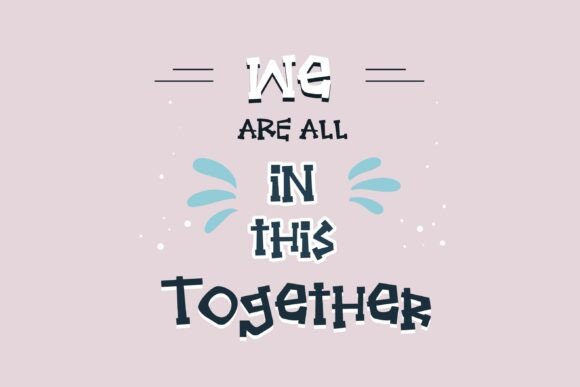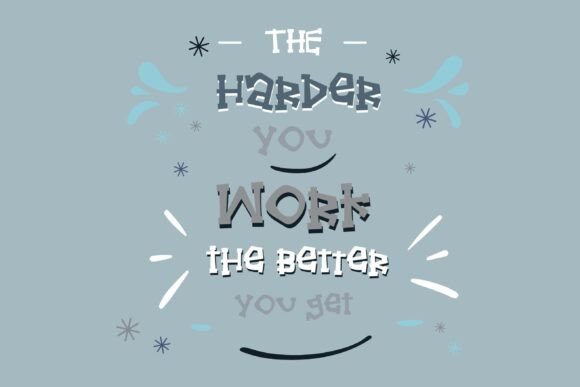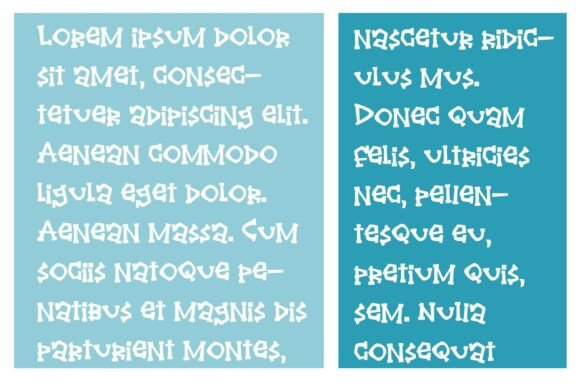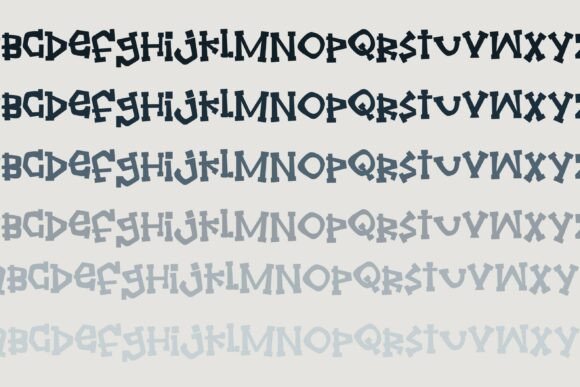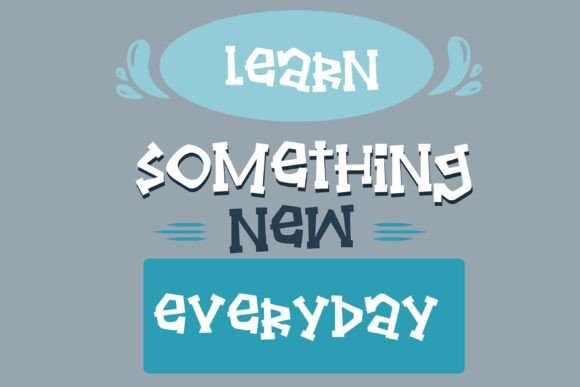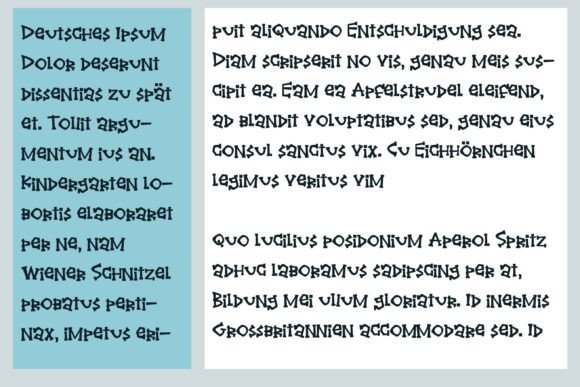
Wander into a World of Imagination with Aminals Font
Are you a designer, crafter, or storyteller looking for a unique and charming display typeface to bring your creative projects to life? Look no further than Aminals Font, a delightful and imaginative font that captures the essence of handmade craftsmanship and storytelling.
A Font that Feels like a Childhood Craft Project
Aminals Font is a bold, geometric typeface that features rhythmic “paper-cut” edges and whimsical, mismatched proportions. These characteristics give the font a playful and endearing personality that feels like a favorite childhood craft project. The sturdy structural presence of Aminals makes it perfect for a variety of creative applications, from independent nursery wall art to children’s book titles and DIY party branding.
Perfect for Playful and Creative Projects
Aminals Font is the premier choice for designers and crafters who want to add a touch of playfulness and creativity to their projects. Whether you’re creating social media headers, party invitations, or children’s book titles, Aminals is the perfect font to bring your imagination to life. Its bold and geometric letterforms make it easy to read and recognize, while its whimsical proportions add a touch of personality and charm.
Independent Nursery Wall Art and Children’s Book Titles
Aminals Font is a perfect fit for independent nursery wall art and children’s book titles. Its bold and sturdy presence makes it easy to read and recognize, while its playful personality adds a touch of whimsy and fun. Imagine using Aminals to create a custom nursery wall art piece that features your child’s name or a special message. The font’s handmade and storyteller soul makes it feel like a one-of-a-kind, artisanal piece that will be treasured for years to come.
DIY Zoo-Themed Party Branding and Social Media Headers
Aminals Font is also perfect for DIY zoo-themed party branding and social media headers. Its playful and creative personality makes it a great fit for party invitations, decorations, and other materials. Imagine using Aminals to create a custom party invitation that features a fun and colorful zoo theme. The font’s bold and geometric letterforms make it easy to read and recognize, while its whimsical proportions add a touch of personality and charm.
Key Features of Aminals Font
- Bold and geometric letterforms: Aminals Font features bold and geometric letterforms that are easy to read and recognize.
- Rhythmic “paper-cut” edges: The font’s rhythmic “paper-cut” edges give it a playful and endearing personality.
- Whimsical, mismatched proportions: Aminals Font features whimsical, mismatched proportions that add a touch of personality and charm.
- Sturdy structural presence: The font’s sturdy structural presence makes it perfect for a variety of creative applications.
- Playful and creative personality: Aminals Font has a playful and creative personality that makes it perfect for designers and crafters who want to add a touch of imagination to their projects.
Get Creative with Aminals Font
If you’re looking for a font that will bring your creative projects to life, look no further than Aminals Font. Its unique and charming personality makes it perfect for a variety of applications, from independent nursery wall art to children’s book titles and DIY party branding. So why wait? Get creative with Aminals Font today and discover a world of imagination and possibility.
In conclusion, Aminals Font is a charming and imaginative display typeface that captures the essence of handmade craftsmanship and storytelling. Its bold and geometric letterforms, rhythmic “paper-cut” edges, and whimsical, mismatched proportions make it perfect for designers and crafters who want to add a touch of playfulness and creativity to their projects. Whether you’re creating independent nursery wall art, children’s book titles, DIY party branding, or social media headers, Aminals Font is the premier choice for bringing your imagination to life.